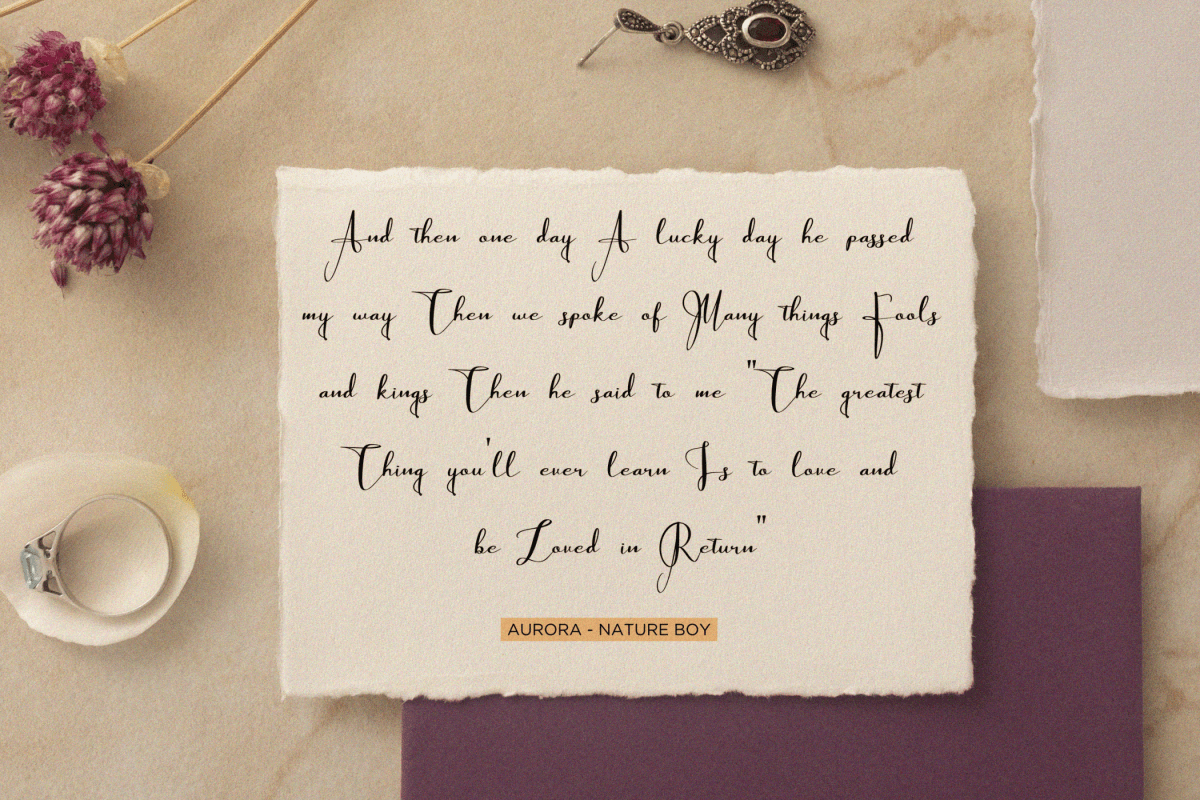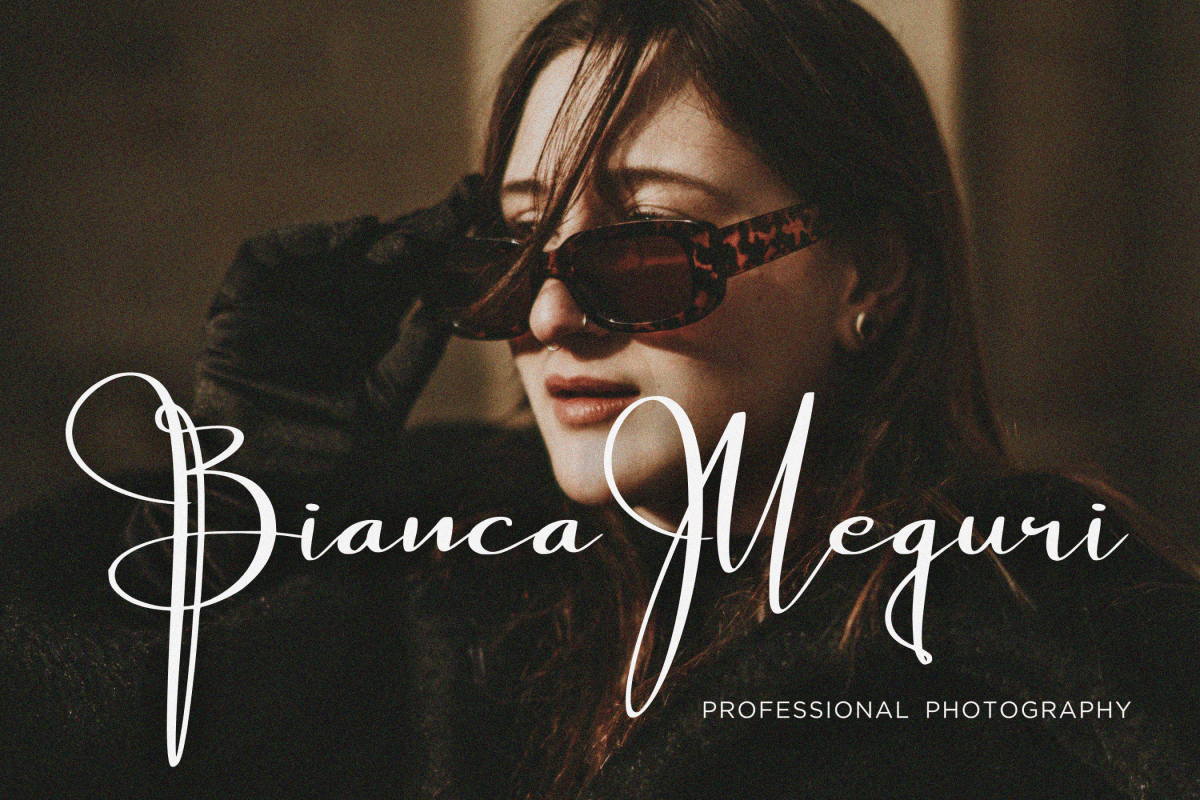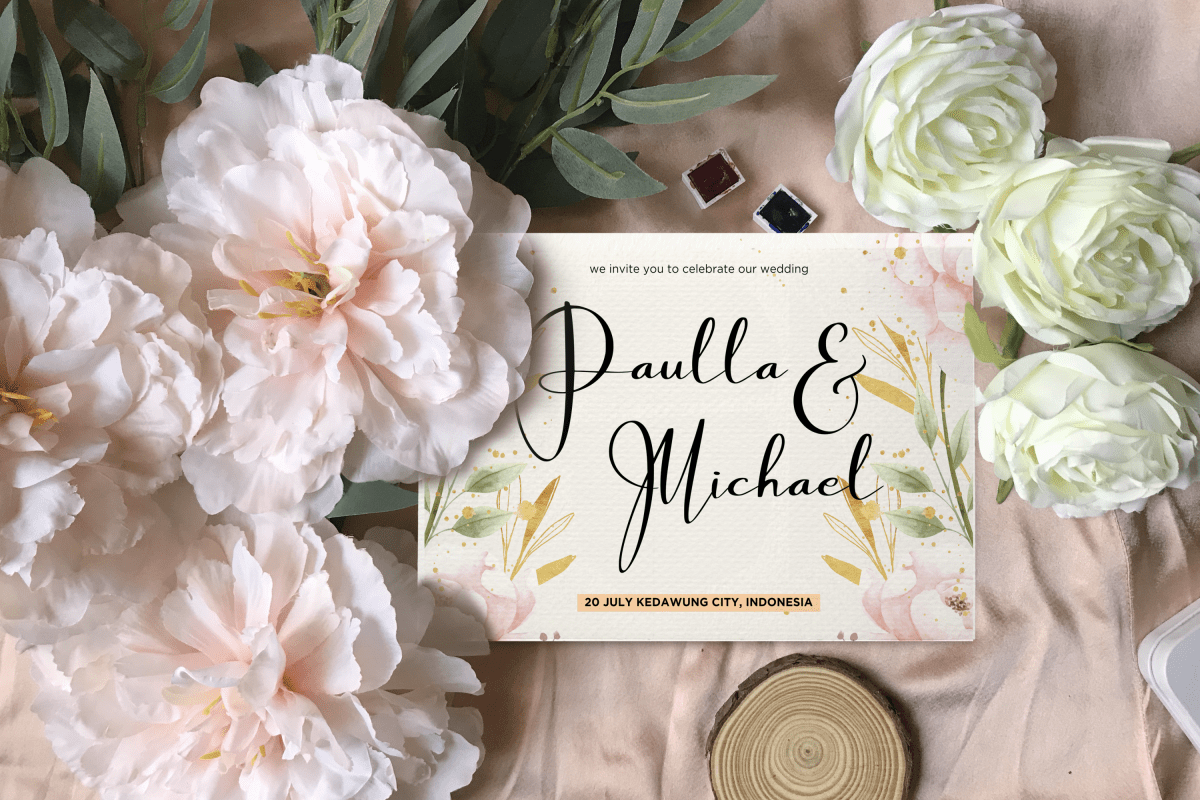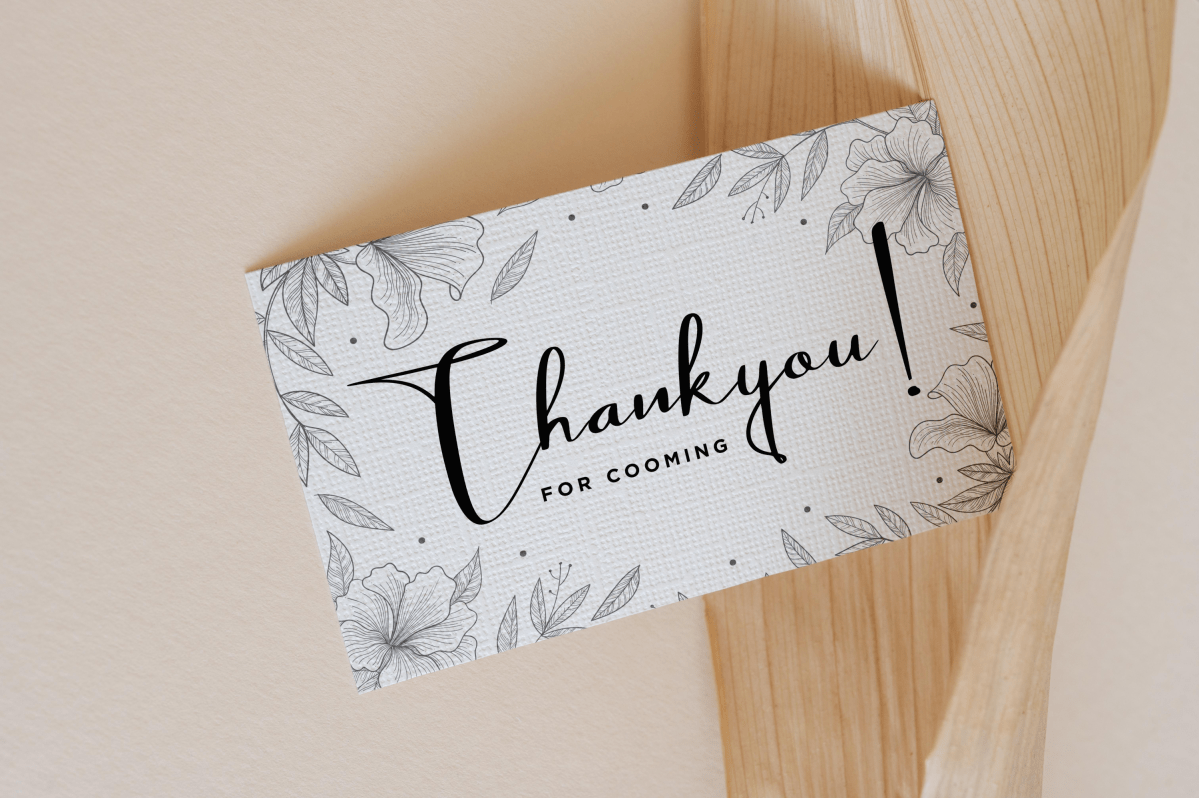
Thousand Sunnygo Script Font
It’s a Modern Script Font. Thousand Sunnygo is perfect for product packaging, branding project, megazine, social media, wedding, or just used to express words above the background.